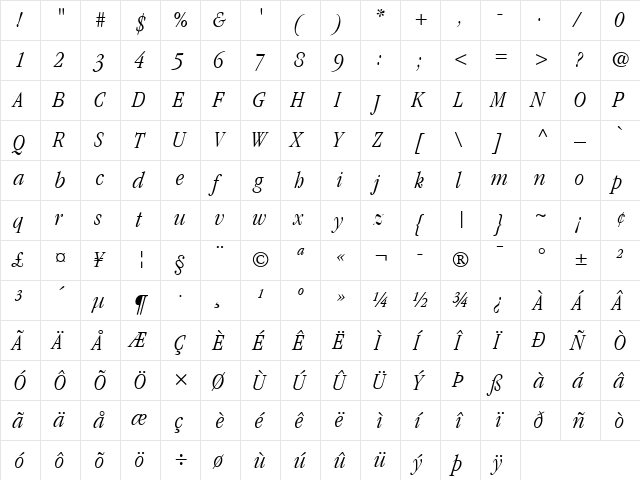
Garamond LT LightCondensed Italic Font Preview
Design Context for Garamond LT LightCondensed Typeface
Garamond LT LightCondensed is a composed and adaptable typeface that performs quietly and consistently across a wide range of design contexts. Its italic angle brings a sense of urgency and motion to the letterforms. The delicate stroke weight brings airiness and refinement to layouts. The condensed width makes it efficient for tight spaces without sacrificing legibility.
Pro Tip: Use Garamond LT LightCondensed for emphasis, pull quotes, and subheadings where its slanted energy can add rhythm to the layout.